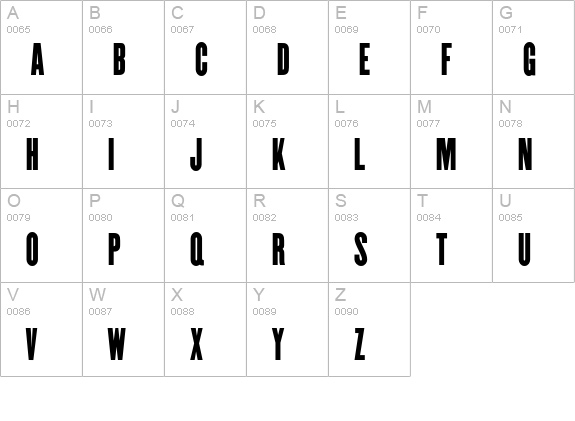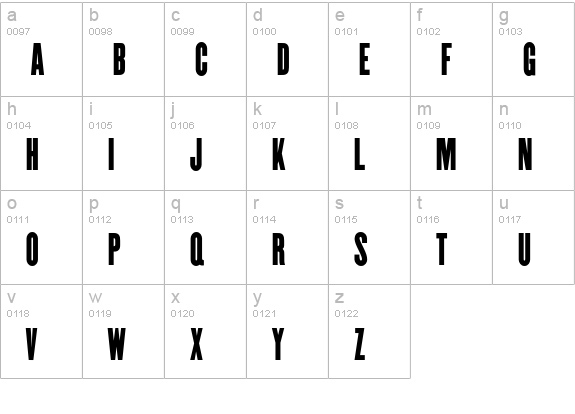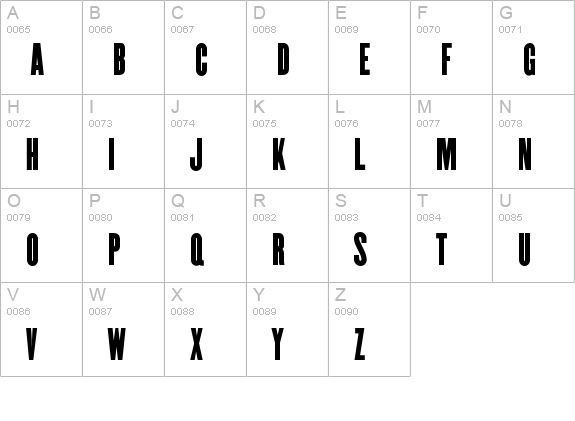
Introducing ElliotOne font, a modern and stylish typeface designed to make your designs stand out. With its sleek and elegant appearance, ElliotOne is perfect for a wide range of projects, from branding and advertising to social media graphics and website design. This versatile font features clean lines and a contemporary feel that will add a touch of sophistication to any design. What's even better is that ElliotOne font is available for free download at FontsMarket.com. That's right, you can elevate your designs with this beautiful typeface without having to spend a dime. Don't miss out on the opportunity to enhance your projects with the stunning ElliotOne font – download it today and take your designs to the next level!